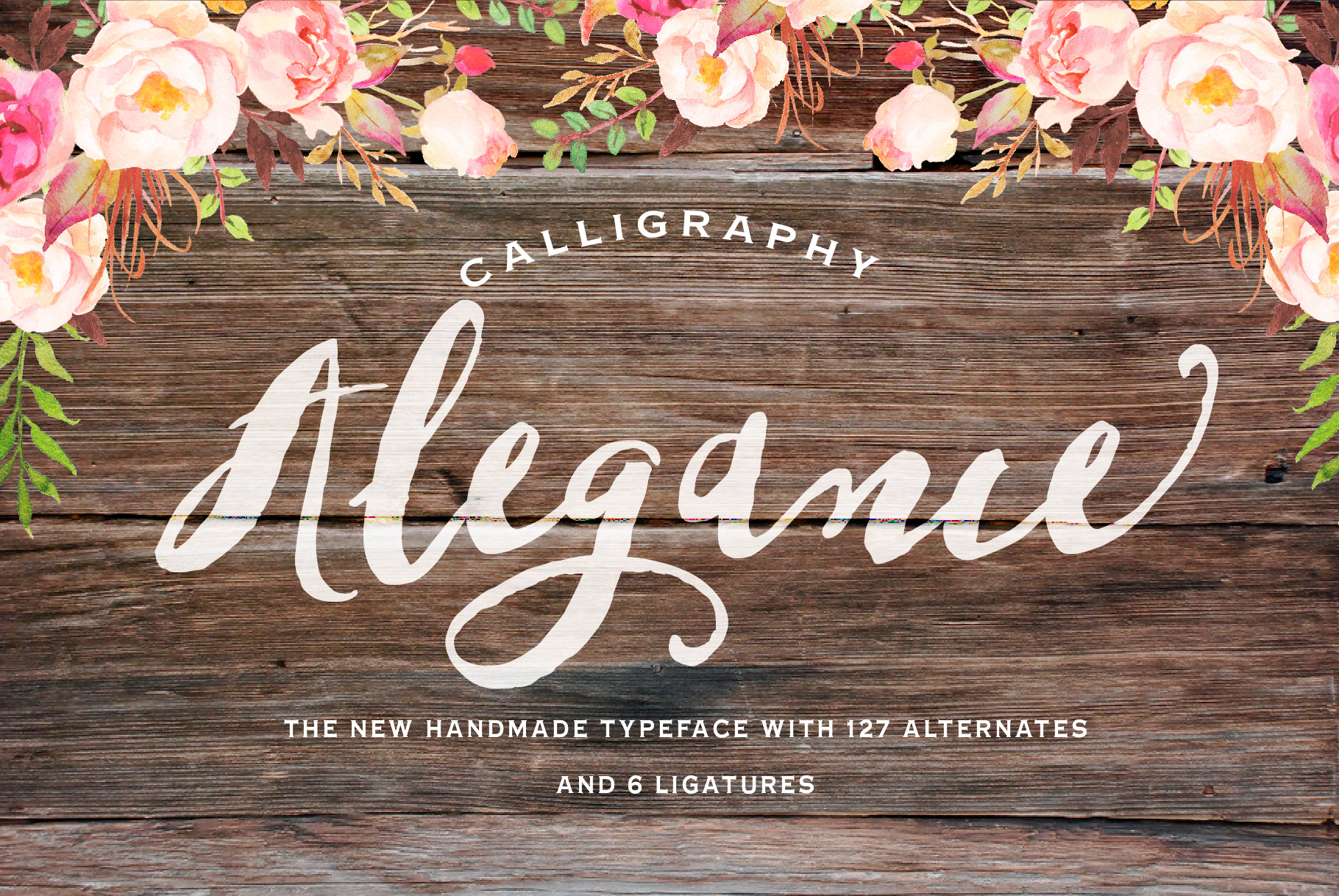
Alegance is a beautiful handmade calligraphy typefaces, Alegance features 127 alternate characters ,6 ligatures,16 ornaments. including initial and terminal letters, alternates, ligatures .